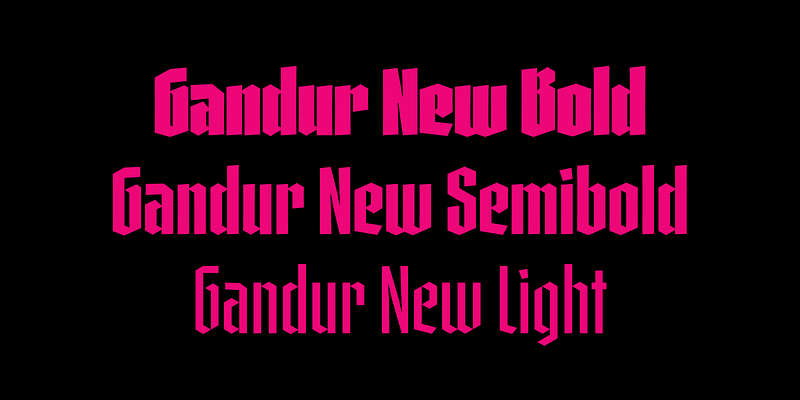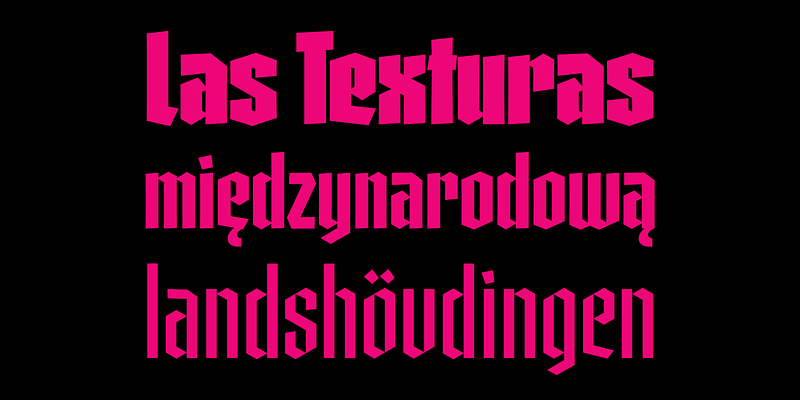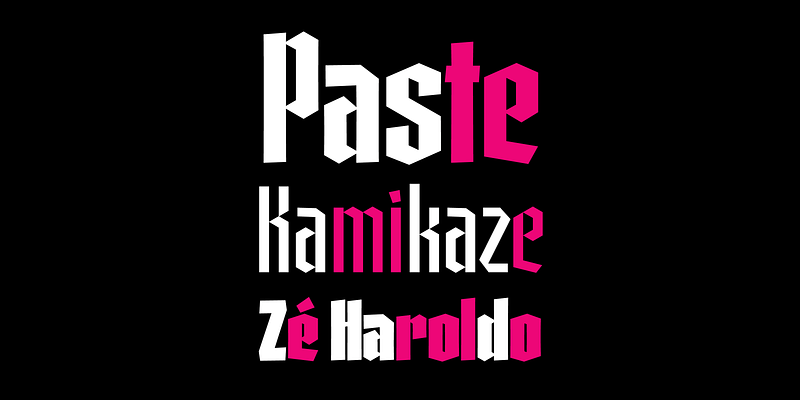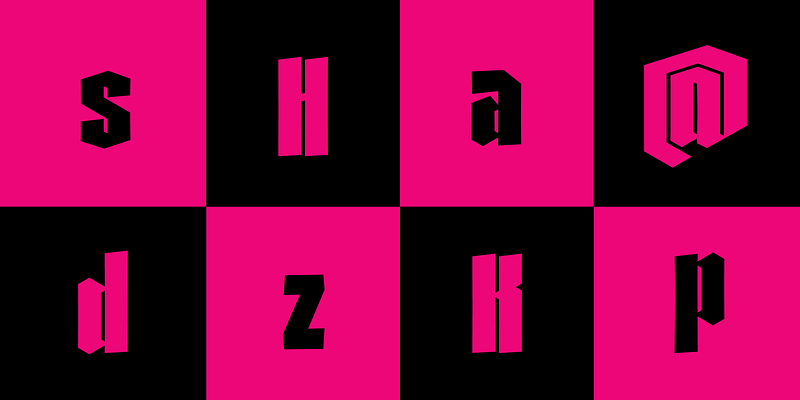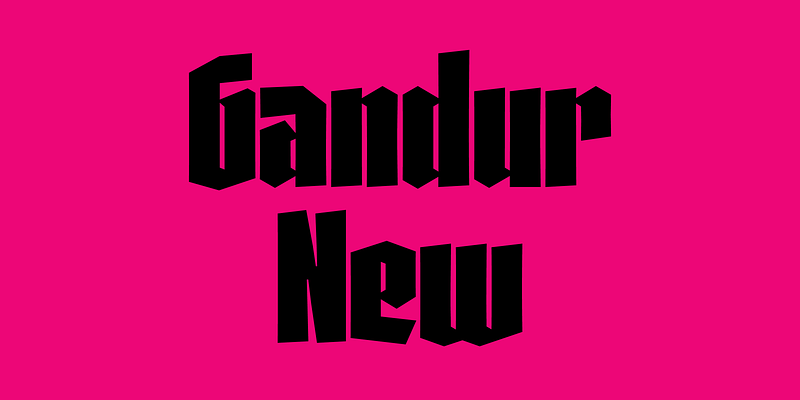
Gandur is a display textura in three weights, split into two families: Alte — the German word for old — and New. Gandur was inspired by other geometric texturas, especially Max Bittrof’s Element (1933). The design began by adhering to a strict hexagonal grid, but during its development, slowly moved from a purely geometric to a more pen-based design (this is especially true in the heaviest weights). The differences between Alte and New are essentially morphological, with reflections in the character set and OpenType features. Gandur New has a more humanistic, contemporary structure and is more ‘romanized’ then Alte. Gandur New also features small capitals. Gandur Alte, on the other hand, remains truer to historical forms, most notably: S s X x Z z. Gandur Alte also features the long-s, which can be accessed via a Stylistic Set or the glyph palette. (As is historically accurate, a short-s will be used at the end of words automatically when the historical Stylistic Set has been activated).